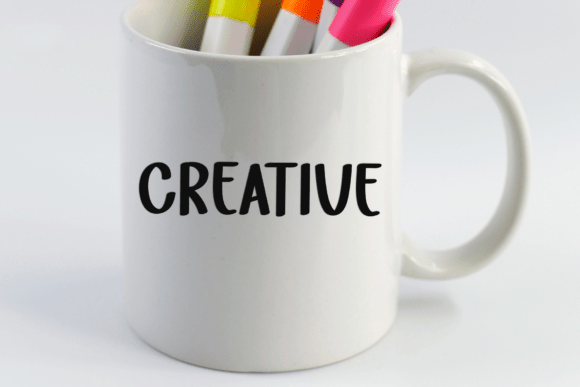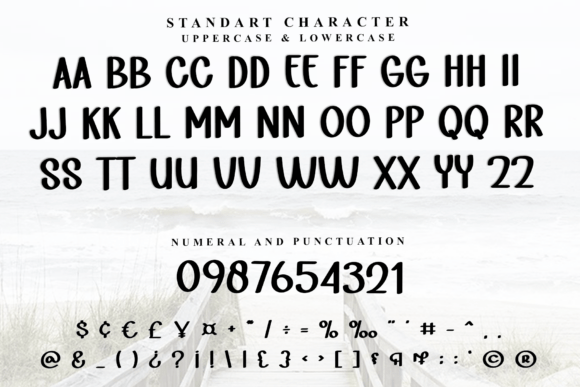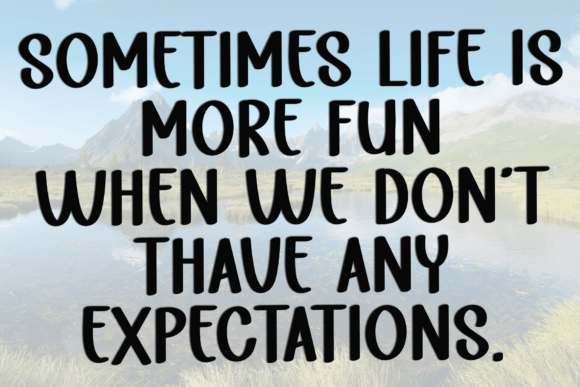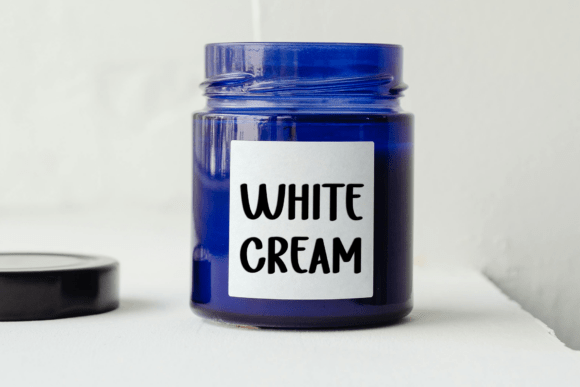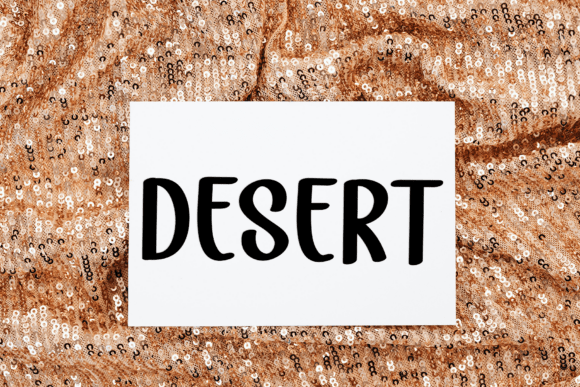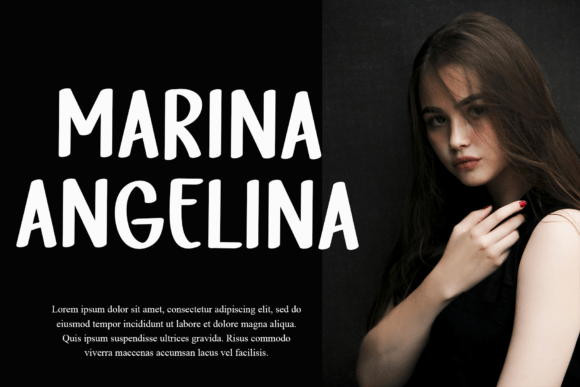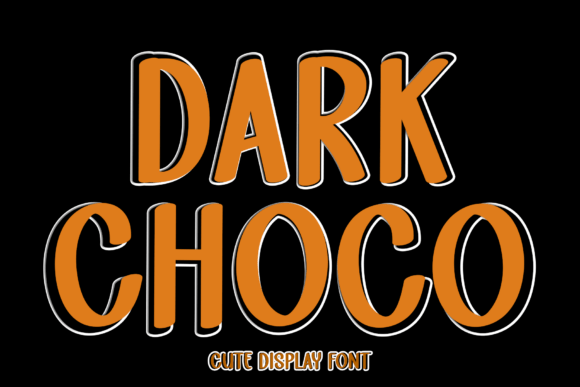
Introducing Dark Choco Font: Elevate Your Designs with a Unique and Eye-Catching Style
Are you a designer or crafter looking for a font that will make your projects stand out from the crowd? Look no further than Dark Choco Font, a beautiful and eye-catching typeface designed with a soft, unique touch. In this article, we’ll explore the features and benefits of Dark Choco Font, and how it can elevate your designs to the next level.
The Distinctive Character of Dark Choco Font
Dark Choco Font is a distinctive and versatile font that boasts a special character, making it perfect for a wide range of design projects. Its soft and unique touch sets it apart from other fonts, giving it a natural and effortless look that’s sure to appeal to many audiences. The font’s distinctive strokes are carefully crafted to create a beautiful and harmonious visual effect, making it ideal for use in various creative fields, including graphic design, crafting, and digital art.
Key Features of Dark Choco Font
- Unique and Eye-Catching Design: Dark Choco Font features a one-of-a-kind design that’s sure to grab attention and make your projects stand out.
- Soft and Natural Look: The font’s soft and natural look makes it perfect for use in designs that require a subtle yet elegant touch.
- Variety of Characters: The font features a range of characters, ensuring that you have everything you need to create stunning designs.
Dark Choco Font is perfect for use in a variety of design projects, including:
- Graphic Design: Use Dark Choco Font to create stunning logos, brochures, and business cards that will make your brand stand out.
- Crafts: Add a personal touch to your crafts, such as handmade cards, gift tags, and scrapbook pages, with the unique and eye-catching style of Dark Choco Font.
- Digital Art: Use Dark Choco Font to add a touch of elegance and sophistication to your digital art, including illustrations, paintings, and mixed media projects.
Benefits of Using Dark Choco Font
By using Dark Choco Font in your design projects, you can:
- Enhance Your Designs: Dark Choco Font will add a touch of elegance and sophistication to your designs, making them more appealing to your audience.
- Stand Out from the Crowd: The font’s unique and eye-catching design will help your projects stand out from the crowd and grab attention.
- Increase Versatility: Dark Choco Font is compatible with various applications and can be used in a wide range of design projects, making it a versatile addition to your font collection.
In conclusion, Dark Choco Font is a beautiful and eye-catching font that’s perfect for designers and crafters looking to elevate their designs to the next level. With its unique and distinctive character, soft and natural look, and versatility, Dark Choco Font is an ideal choice for a wide range of design projects. Whether you’re working on graphic design, crafts, or digital art, Dark Choco Font is sure to enhance your designs and make them appealing to many audiences.